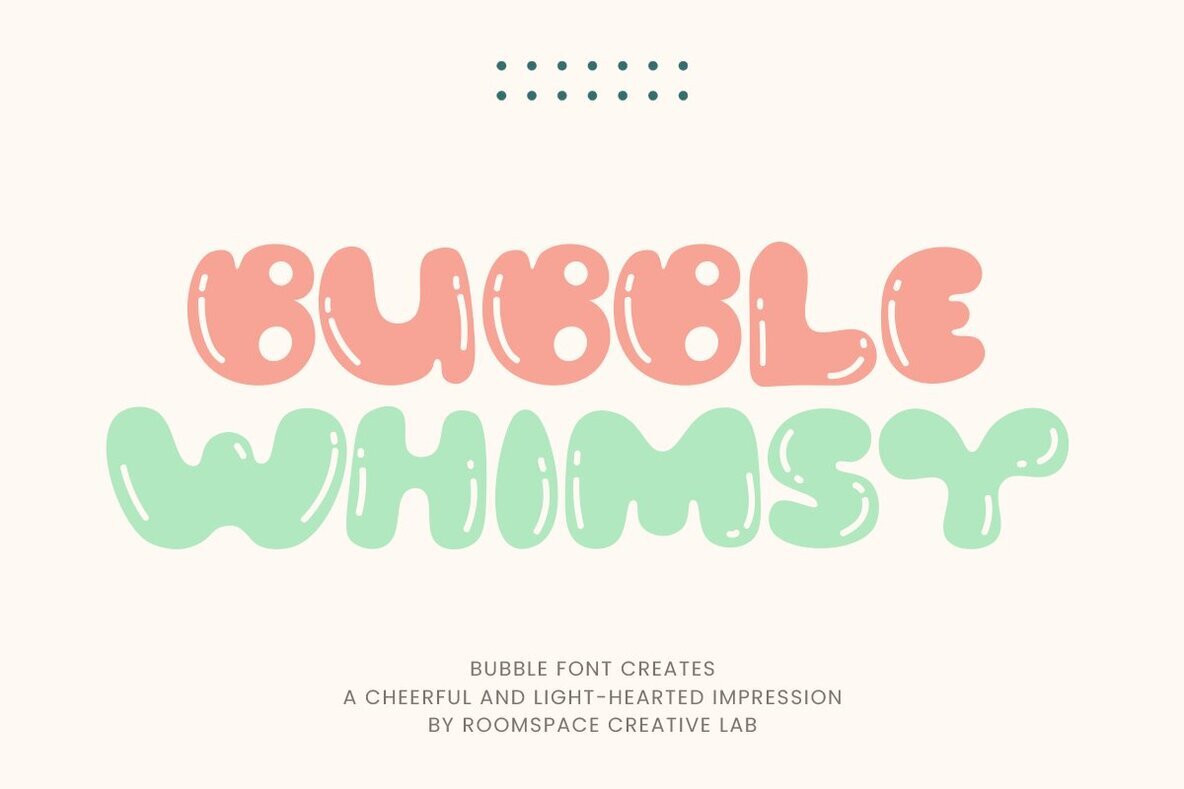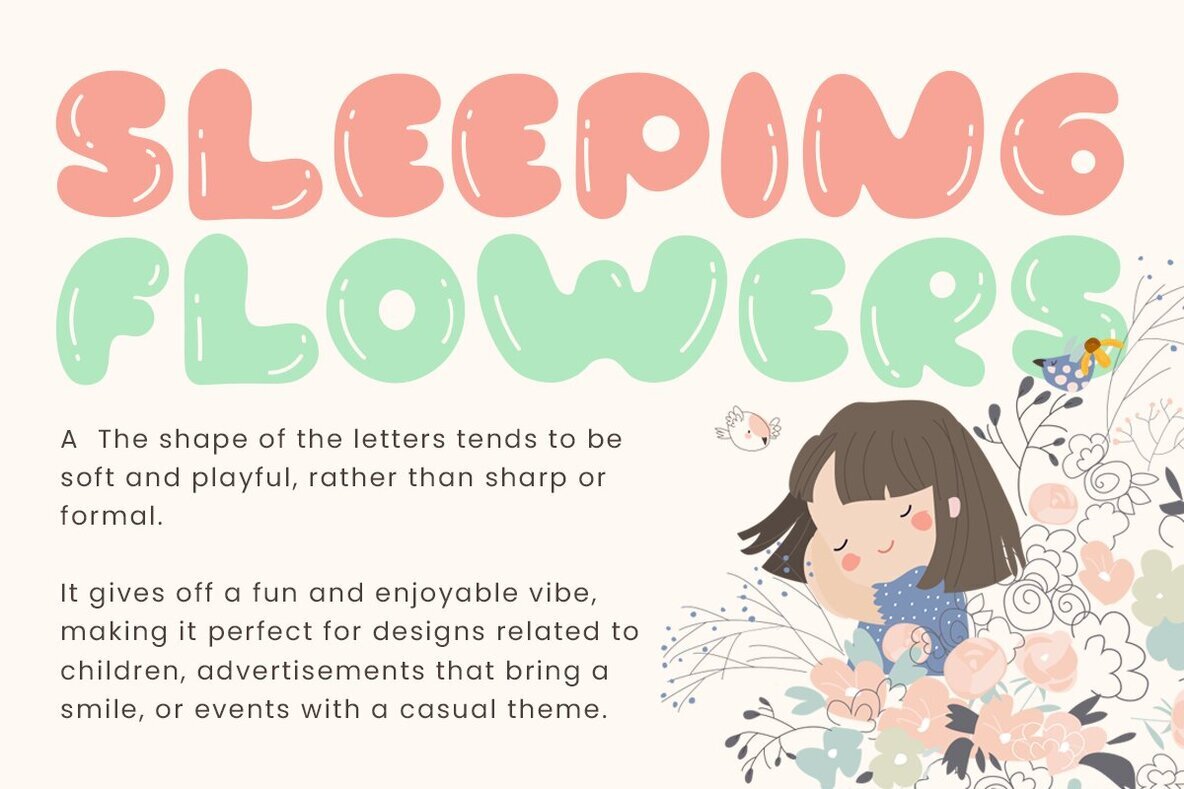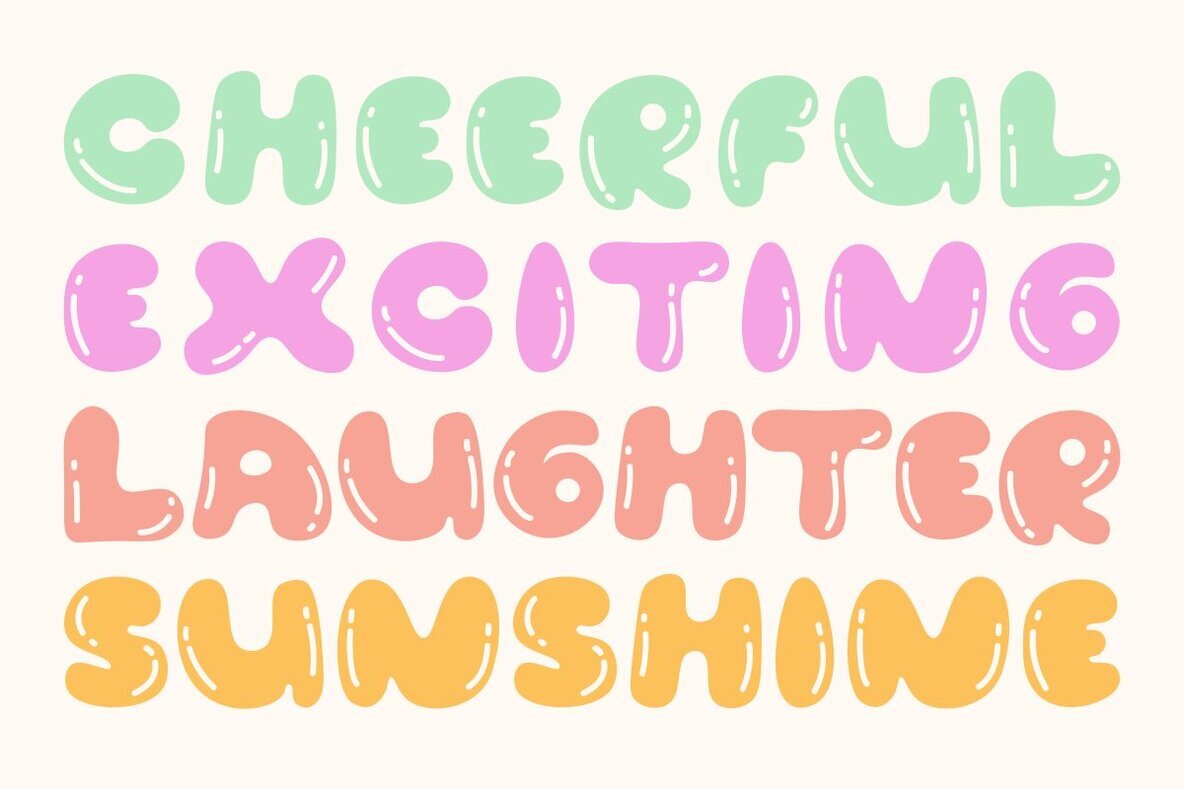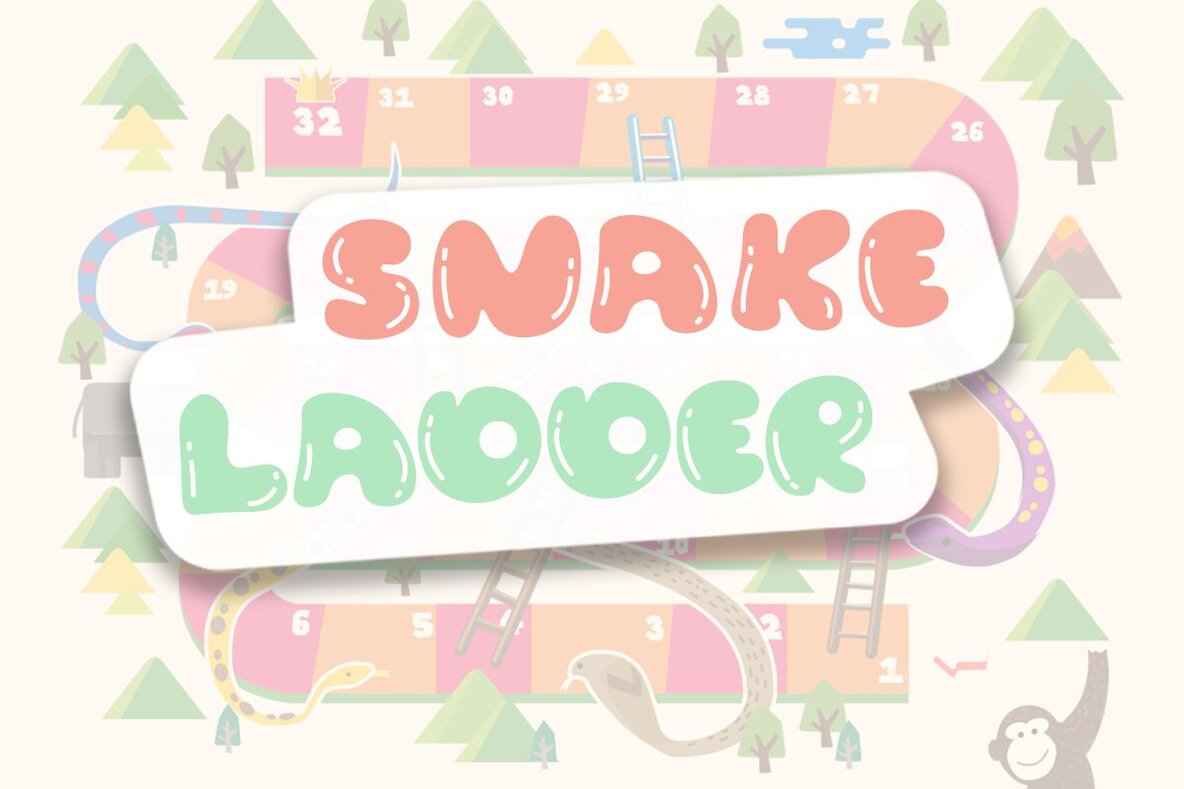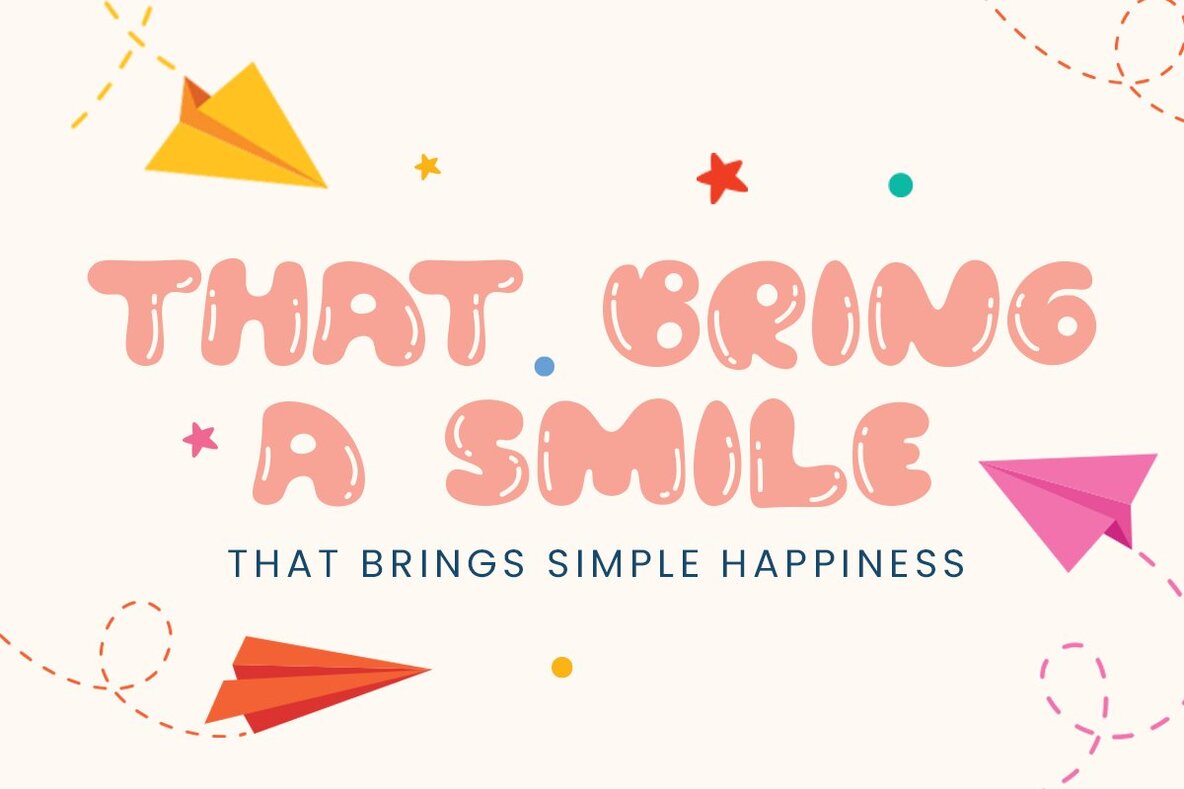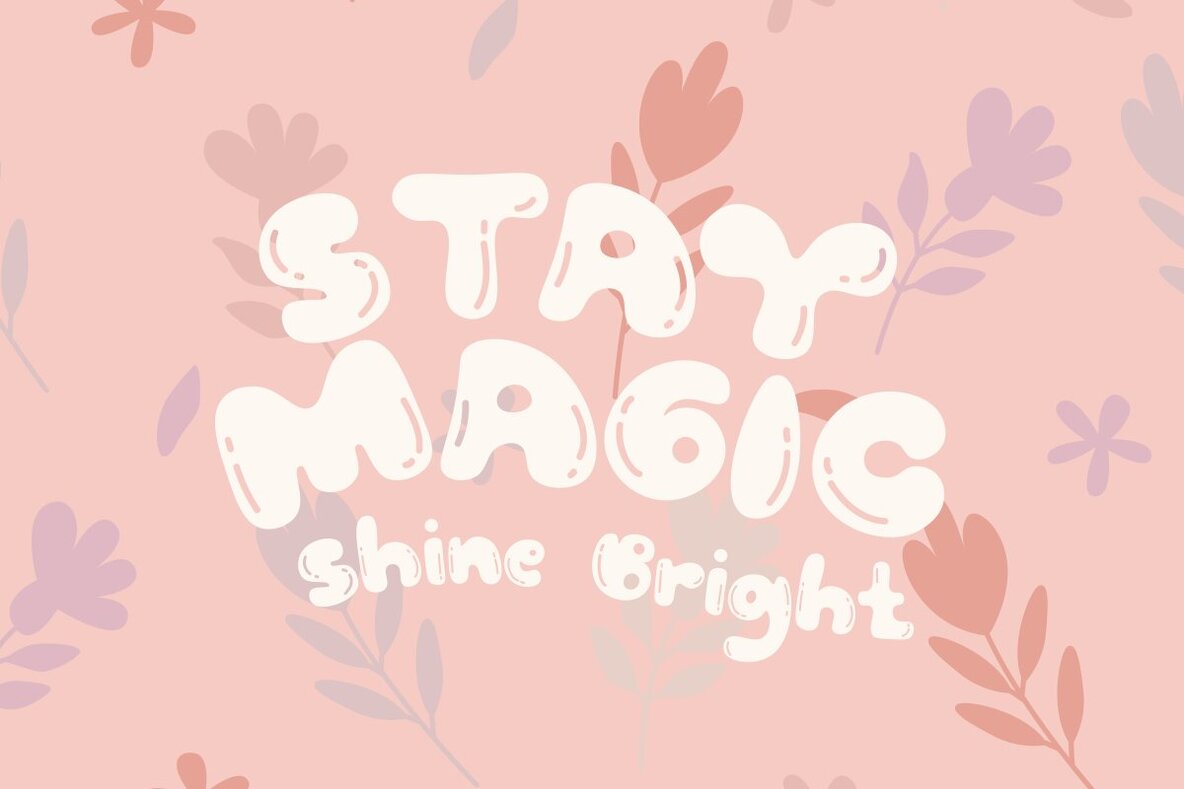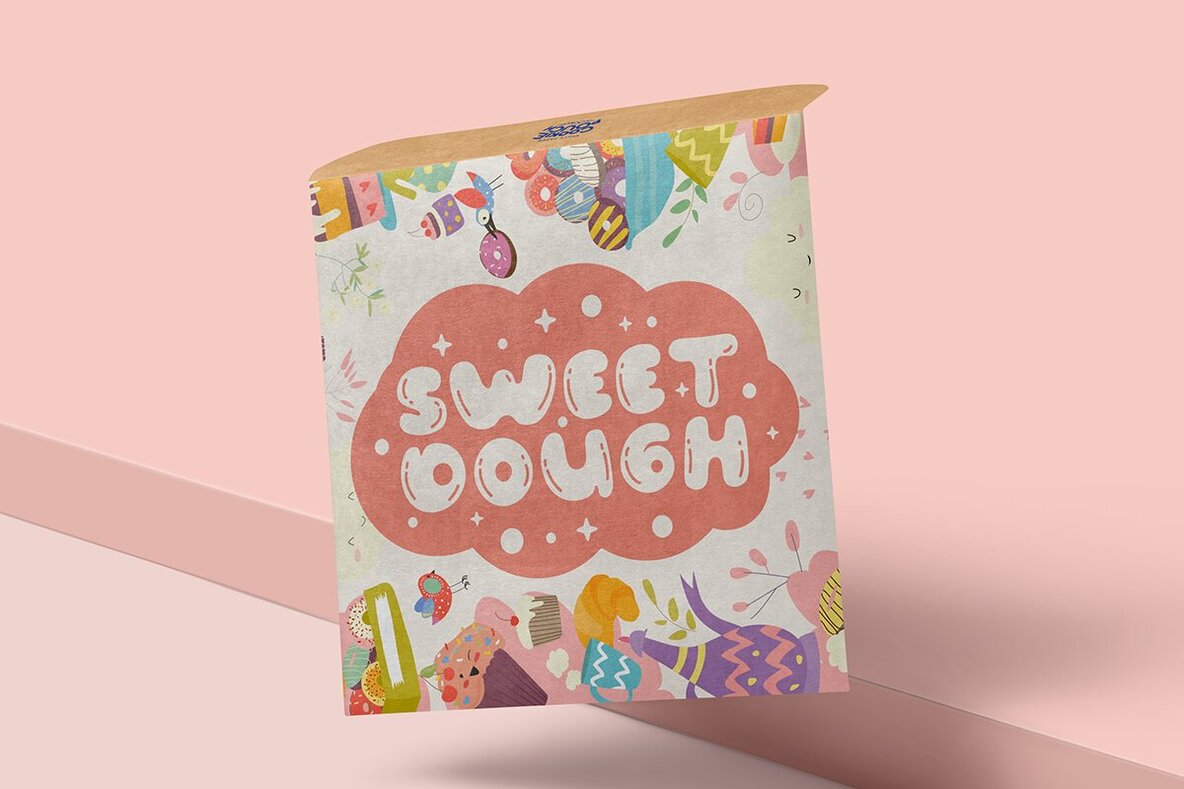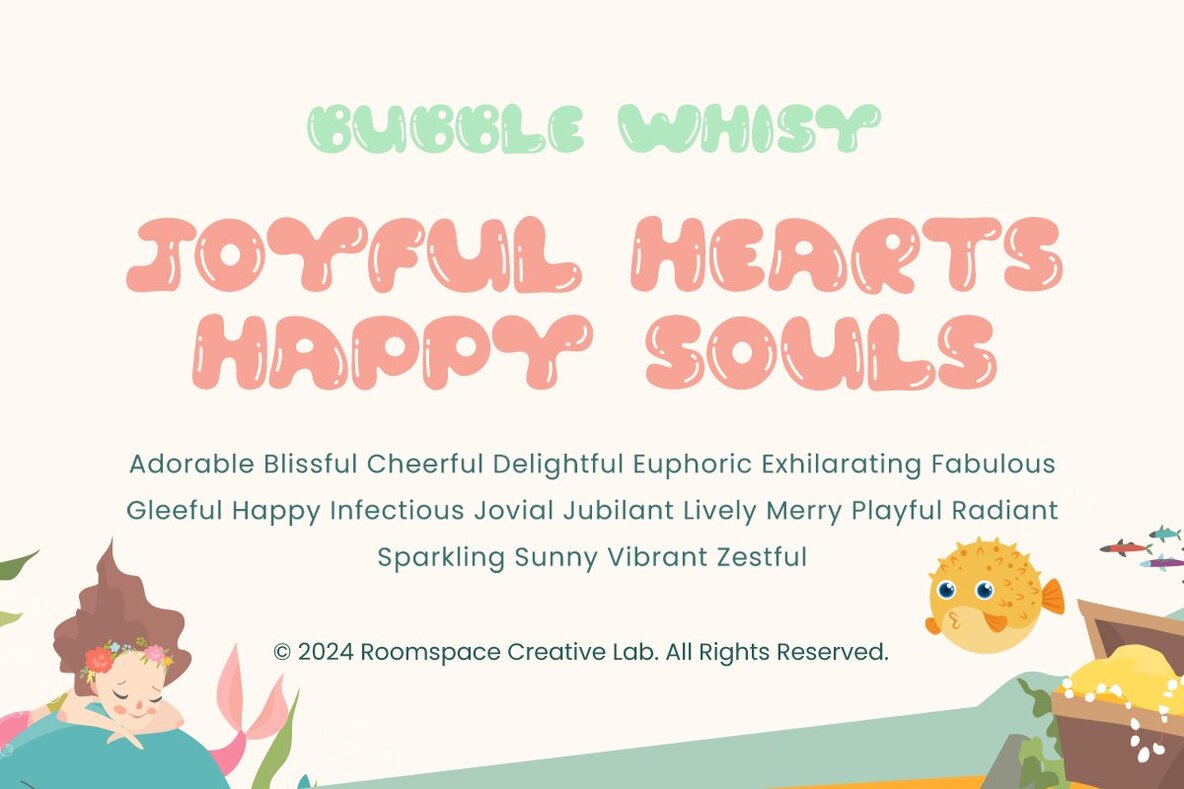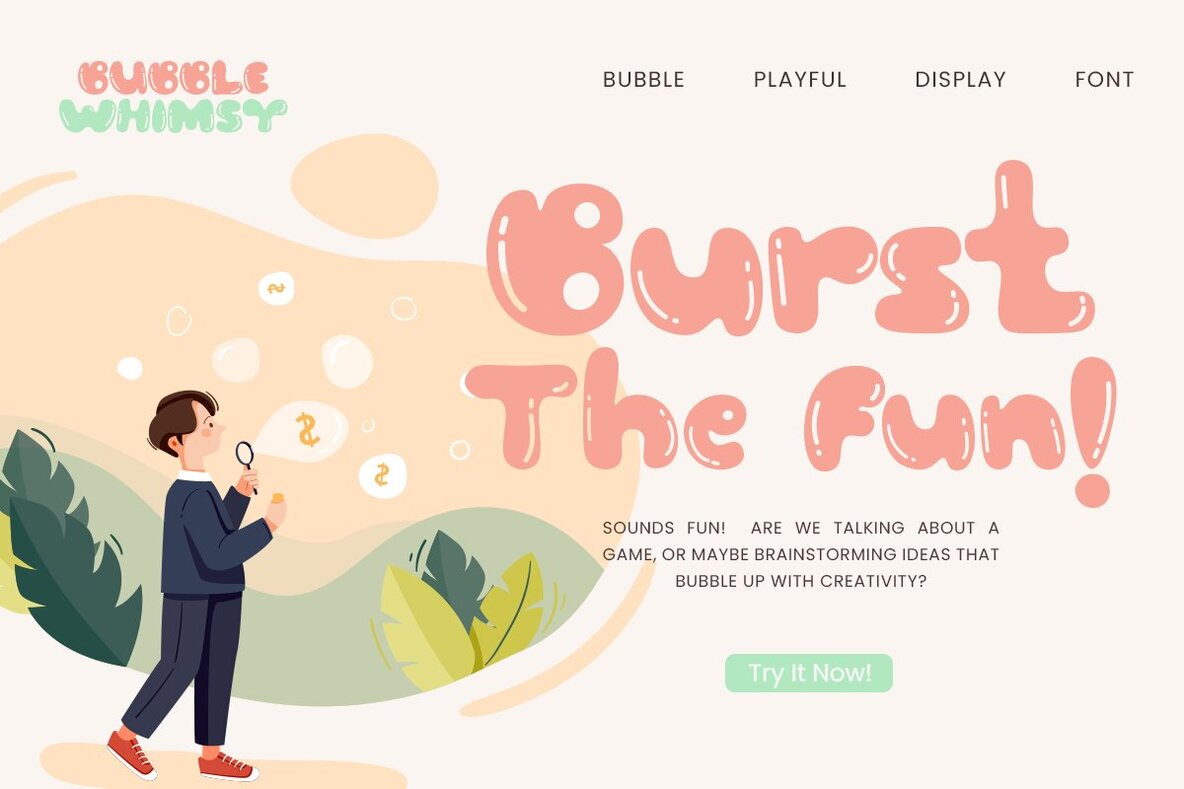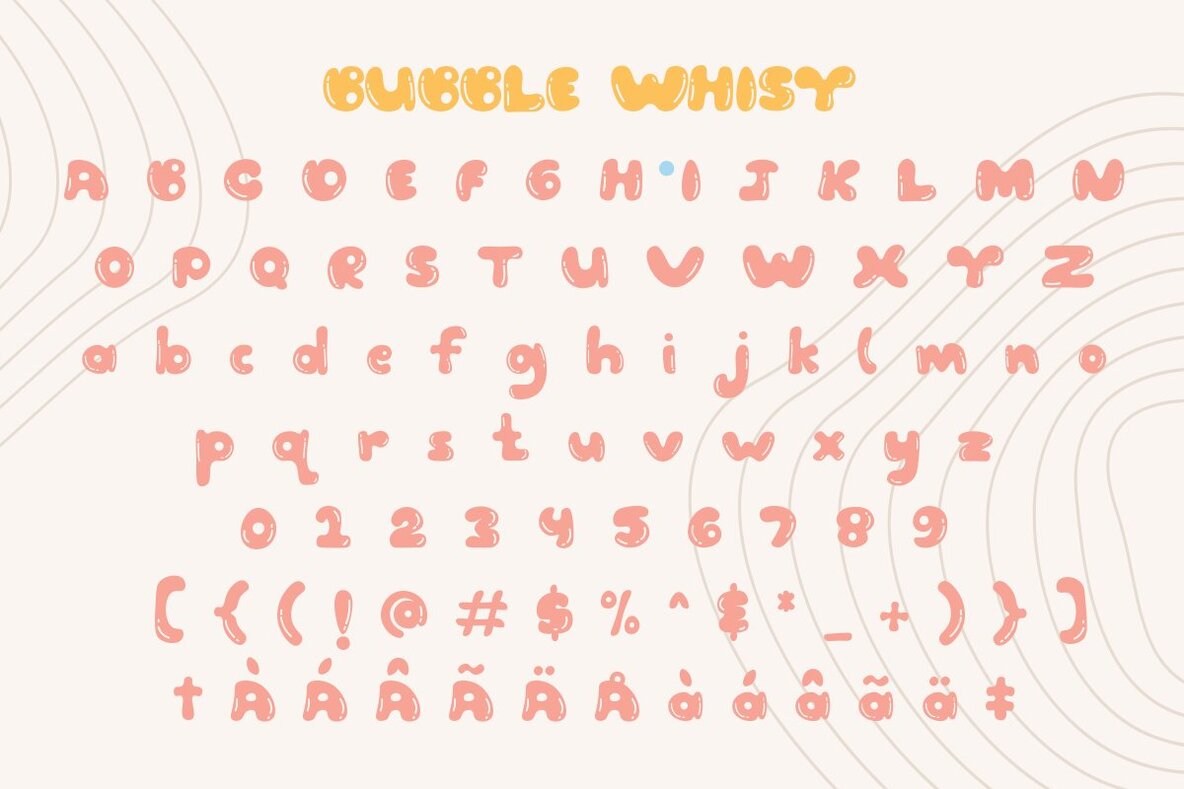
Bubble Whimsy Font
Bubble Whimsy Regular
Infuse your designs with joy and playfulness using Bubble Whimsy—a delightful bubble font that transforms every project into a cheerful masterpiece. Perfect for designers, creatives, and moms alike, this decorative sans-serif font offers an inviting charm ideal for kids' projects, birthday invitations, baby shower cards, and more. Its friendly style shines with a whimsical vibe, making your social media graphics and crafting endeavors stand out.Bubble Whimsy Typeface